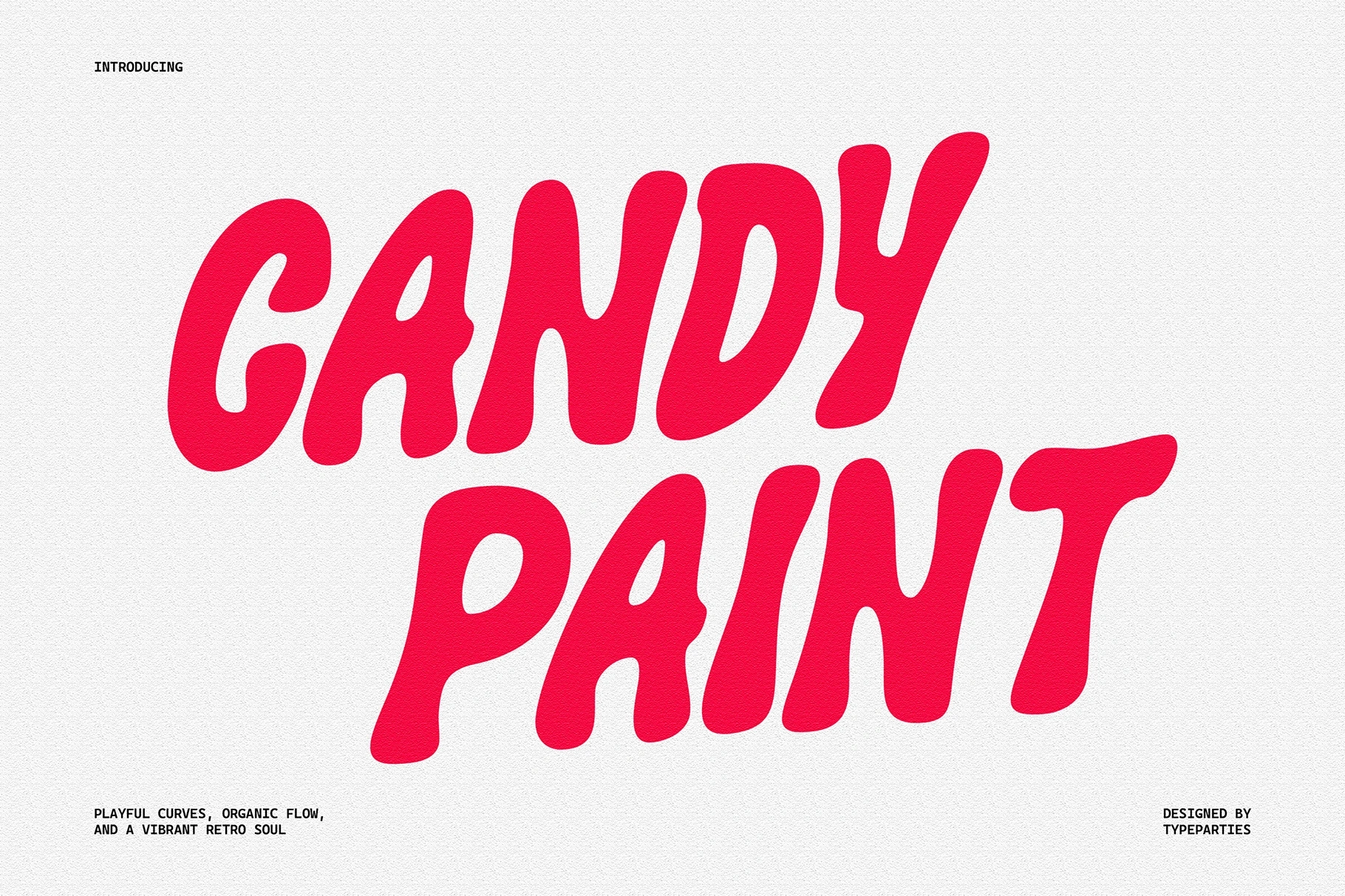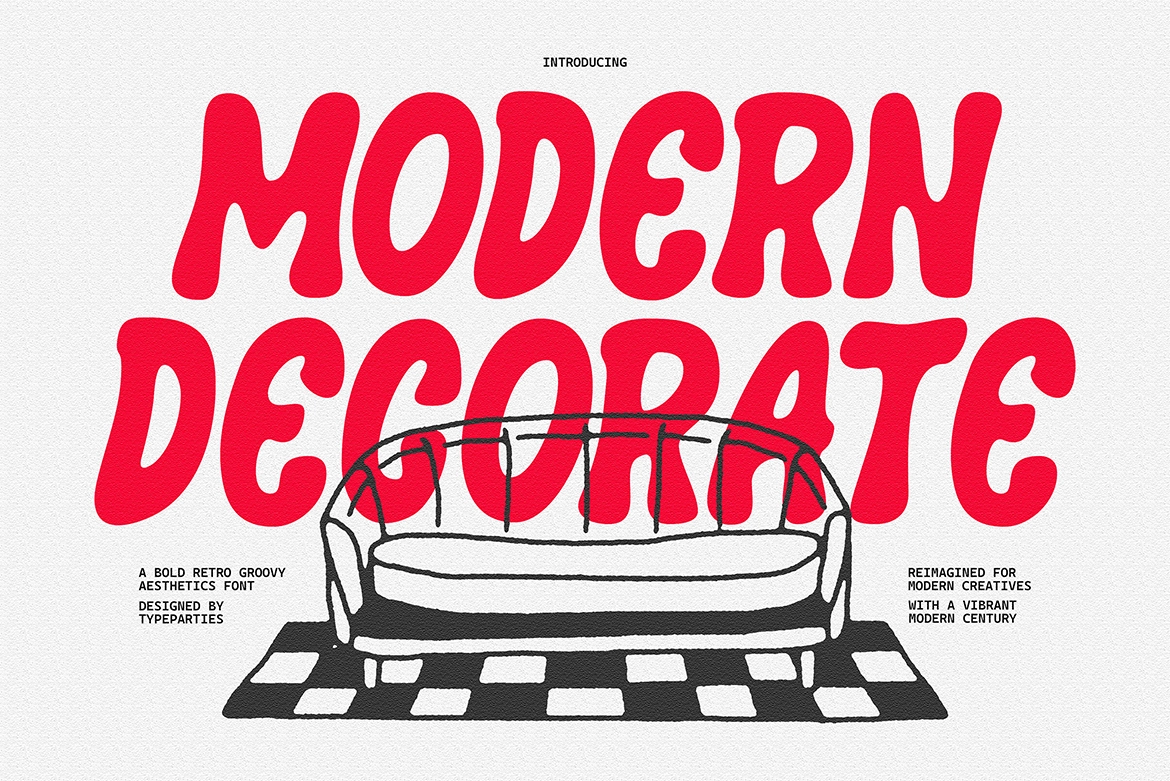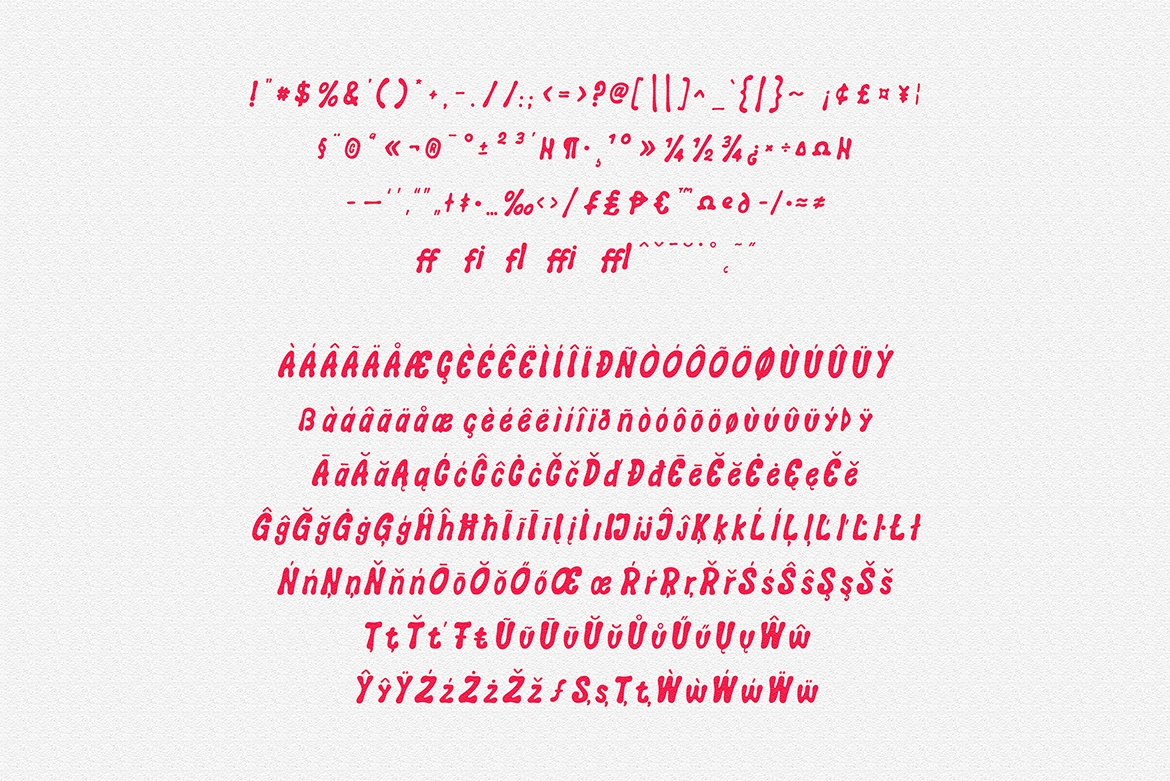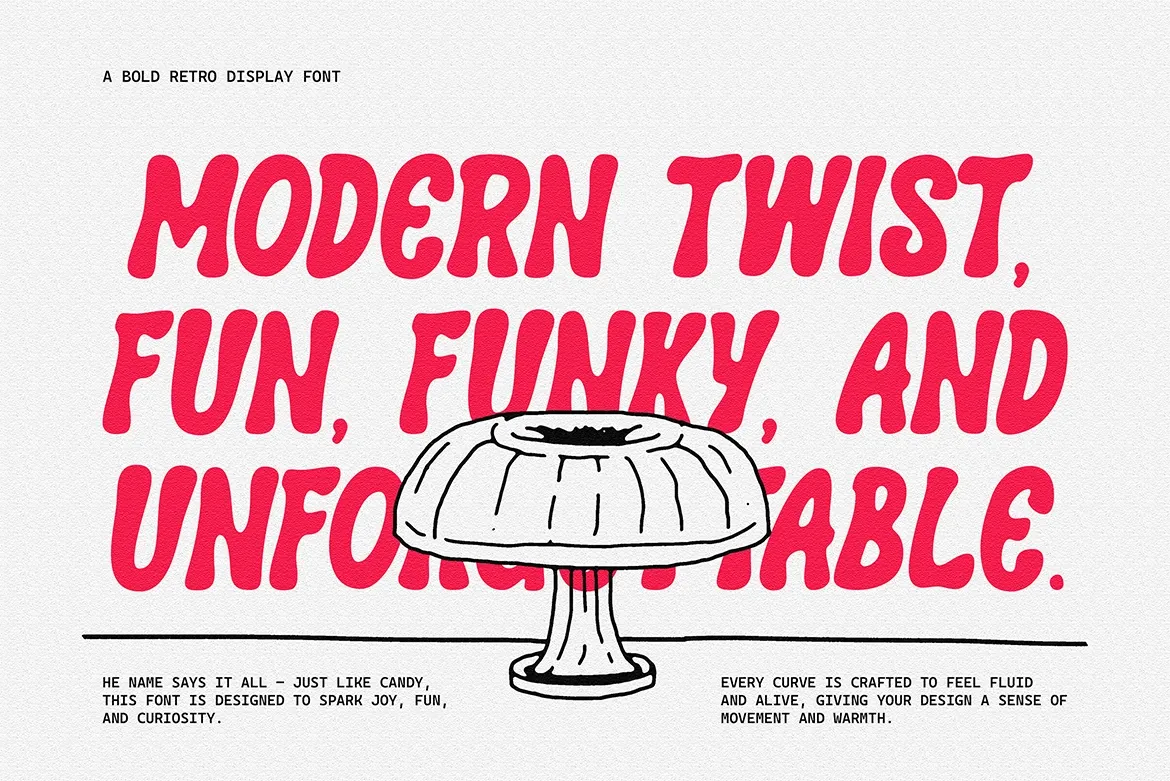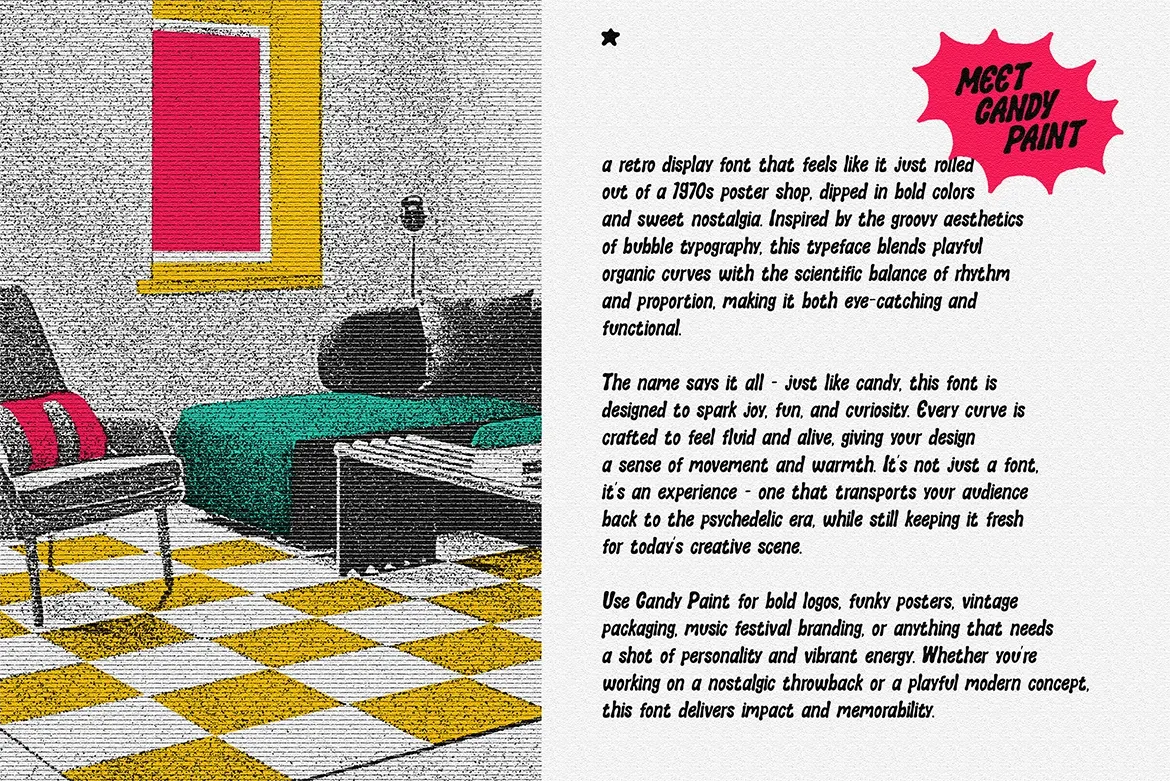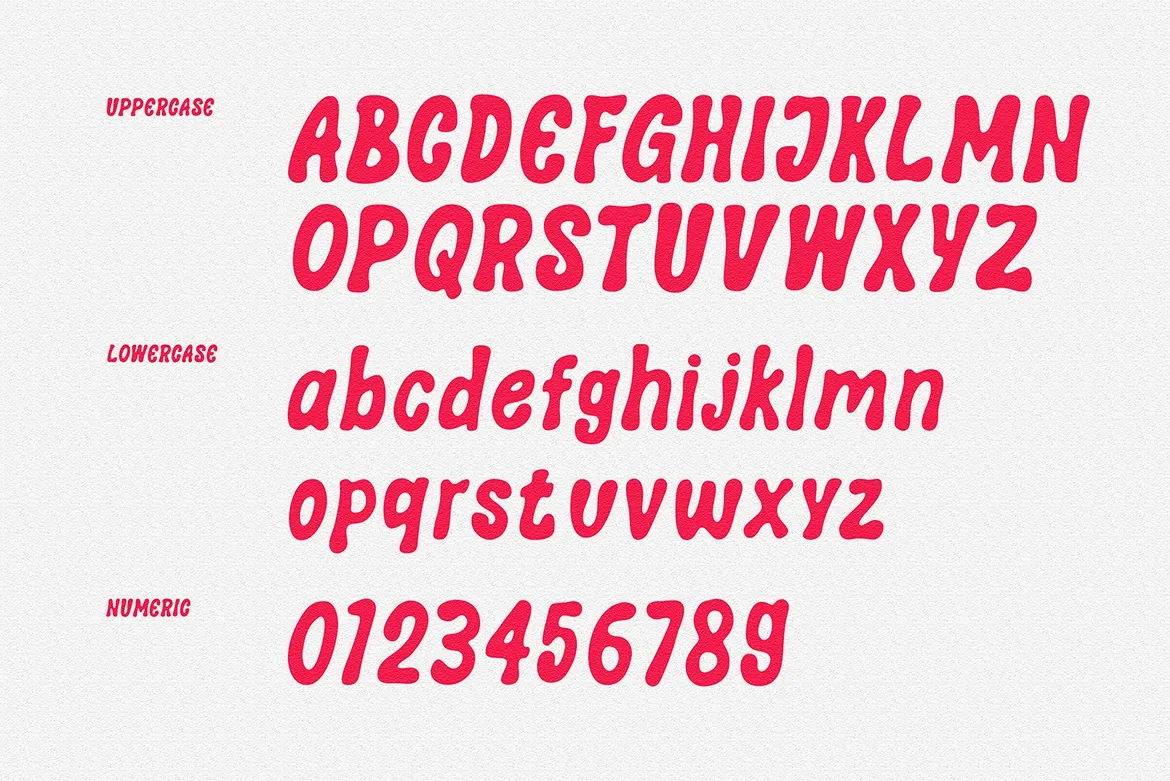
CandyPaint - Retro Groovy Font
Step into a world of color and nostalgia with CandyPaint – Retro Groovy Font , a lively display typeface inspired by the bold, bubbly charm of 1970s design. Its smooth curves and rhythmic flow capture the joyful spirit of retro lettering while maintaining the balance and clarity needed for modern creative projects.
Every stroke in CandyPaint feels dynamic and fluid — like a handwritten note frozen in motion. This font radiates positivity and creativity, making it perfect for posters, product packaging, branding, album covers, and social media graphics that need a fun, eye‑catching twist.
More than just a typeface, CandyPaint – Retro Groovy Font delivers a full sensory experience — blending vintage soul with contemporary playfulness to make every design feel sweet, energetic, and unforgettable.